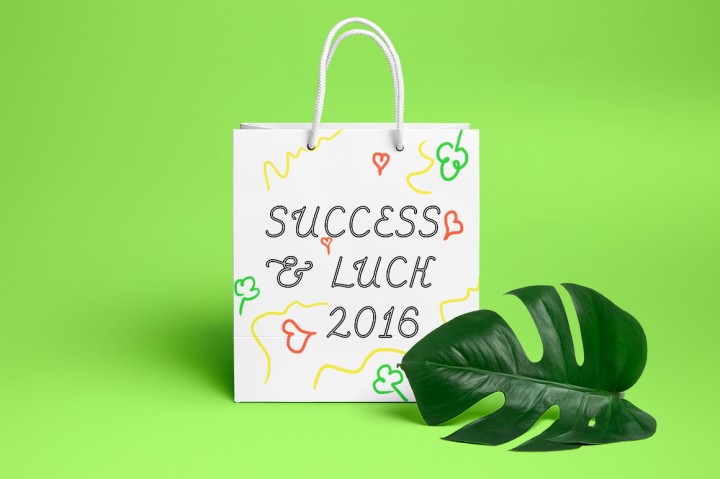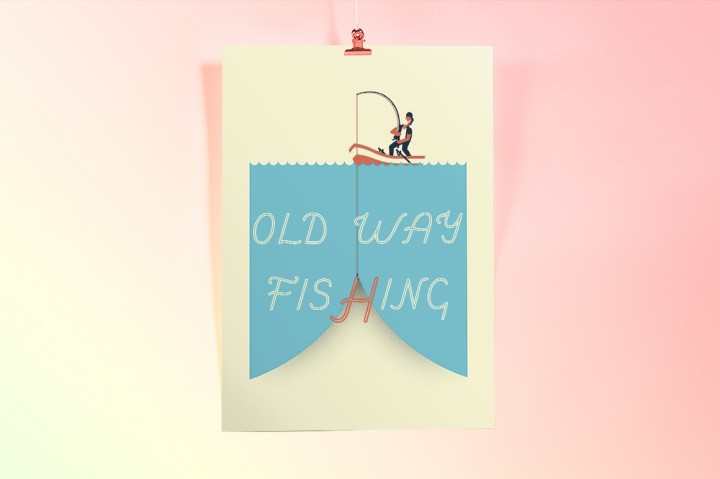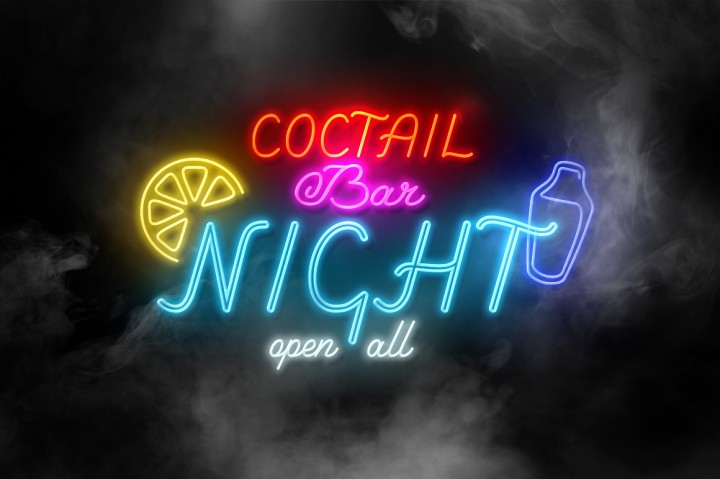
Do you remember the moment when a single design element sparks a wave of inspiration for your next creative project? Maybe it was a unique color palette or a striking typography choice. For designers, those ‘aha’ moments can be a game-changer.
Introduction to Savoiardi Display Font
As a design resource, typography plays a vital role in elevating our creative vision. That’s why discovering high-quality fonts can be a treasure trove for designers. Enter the Savoiardi Display Font, a stunning all-caps creation by Etewut that’s available for free download. With its transparent background, this versatile font is perfect for adding a touch of elegance to any design project.
Whether you’re working on a logo, advertisement, or digital product, the Savoiardi Display Font is an invaluable addition to your design toolkit. Its high-quality design makes it an excellent choice for designers seeking to add a premium feel to their creative projects.
Key Features of Savoiardi Display Font
- High-quality, elegant design suitable for various creative projects.
- Free download available, making it an excellent design resource for artists and designers.
- Features a transparent background, allowing for easy integration with custom backgrounds and designs.
- Unique characteristics include a sophisticated, cursive script and a luxurious feel, perfect for high-end branding and design projects.
- Designed to be highly legible and visually appealing, making it an ideal choice for various design applications, including invitations, posters, and more.
Honest Review: Savoiardi Display Font
I recently stumbled upon the Savoiardi Display Font while searching for a high-quality design resource for my next creative project. The font caught my eye with its elegant, modern design.
Here’s what I love about Savoiardi Display Font:
- ✨ The font features a transparent background, allowing for seamless integration with any design element.
- ✨ The design is highly versatile and can be used for a wide range of creative projects, from branding to typography-based art.
While I appreciate the Savoiardi Display Font, there are a few limitations I’ve noticed:
- ⚠️ The font is relatively new to the market, so it may not be as widely supported by certain software or platforms.
- ⚠️ Some users may find the font’s design to be too minimalist or plain, depending on their personal taste.
Overall, I’m impressed with the Savoiardi Display Font. Its high quality, free download, and versatile design make it a valuable resource for designers. While it may have some limitations, I believe it’s a great addition to any design toolkit.
To use the Savoiardi Display Font in PowerPoint or Word, select the font from the font list and adjust the font size and color as needed. The Savoiardi Display Font is a free download, making it a great design resource for your creative project. You can use it to create headings, titles, or even a logo.
Tips for Getting the Most Out of Savoiardi Display Font
For the best results, use the Savoiardi Display Font on a transparent background to make it stand out. You can also experiment with different font sizes and colors to create a unique look. The Savoiardi Display Font is a versatile font that can be used in a variety of creative projects, from graphic design to digital art.
The Savoiardi Display Font is commonly used in creative projects such as graphic design, digital art, and typography. It’s also a great choice for creating headings, titles, and logos. With its high-quality design and transparent background, the Savoiardi Display Font is a popular design resource among designers and artists.
Is the Savoiardi Display Font suitable for large-scale designs?
Yes, the Savoiardi Display Font is designed to be scalable, making it suitable for large-scale designs, such as billboards, posters, and other display materials. Its high-quality design ensures that it will look great at any size.